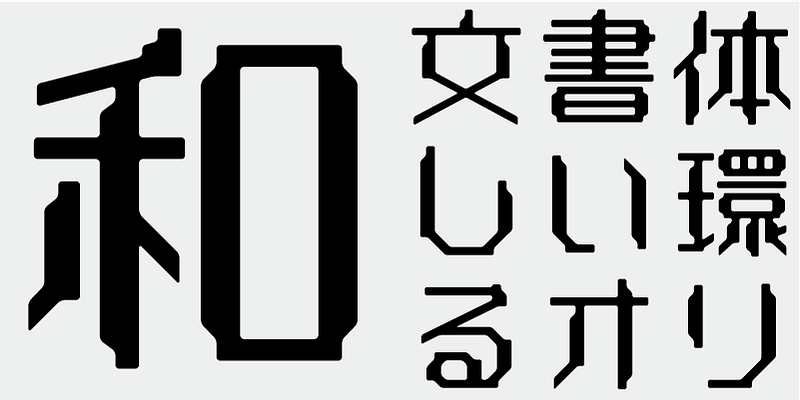
AB 24h Font Free Download is a modern, clean, and versatile sans-serif typeface designed for high readability and functionality. With its geometric precision and balanced letterforms, this font is ideal for digital and print applications such as websites, mobile interfaces, signage, advertising, and branding. Its name “24h” evokes a sense of timelessness and availability, making it perfect for designs that need to convey modernity and clarity.
The font’s structure is well-suited for both small and large sizes, offering excellent legibility across various platforms. Its minimalistic design ensures that it works well in diverse creative contexts, making it a strong choice for both professional and casual design projects.